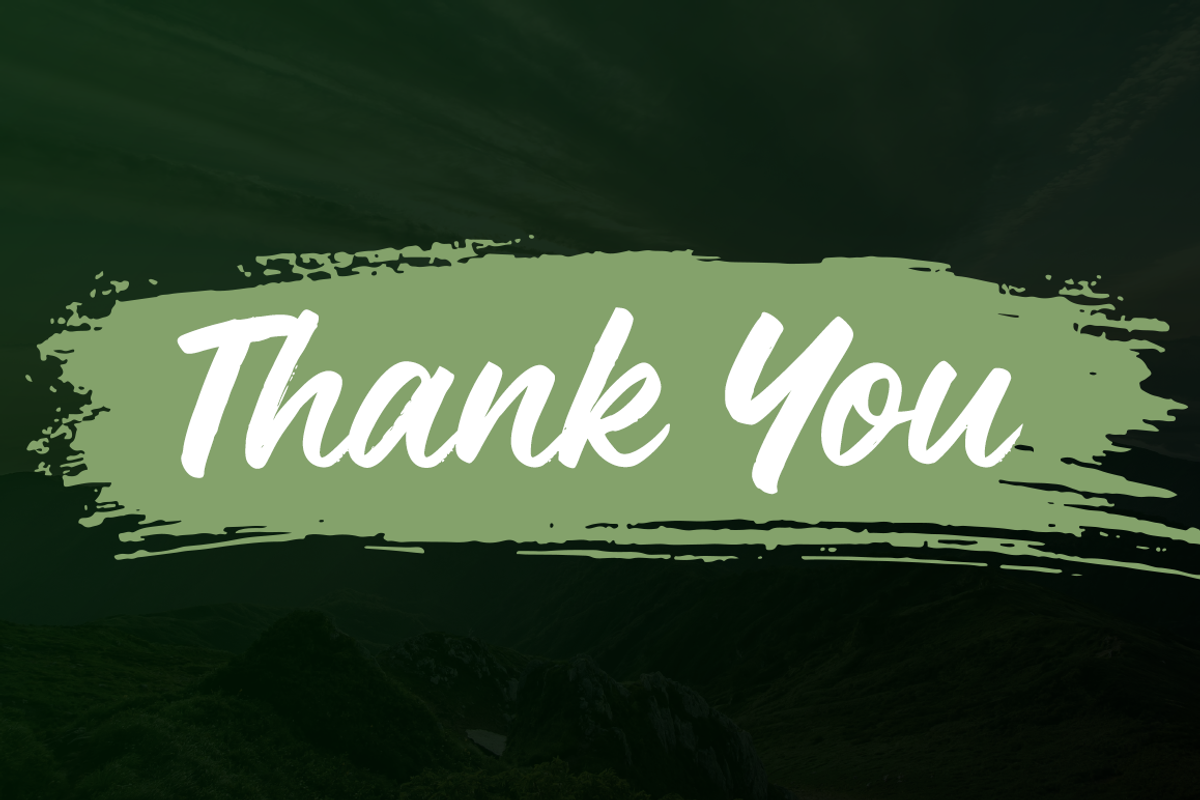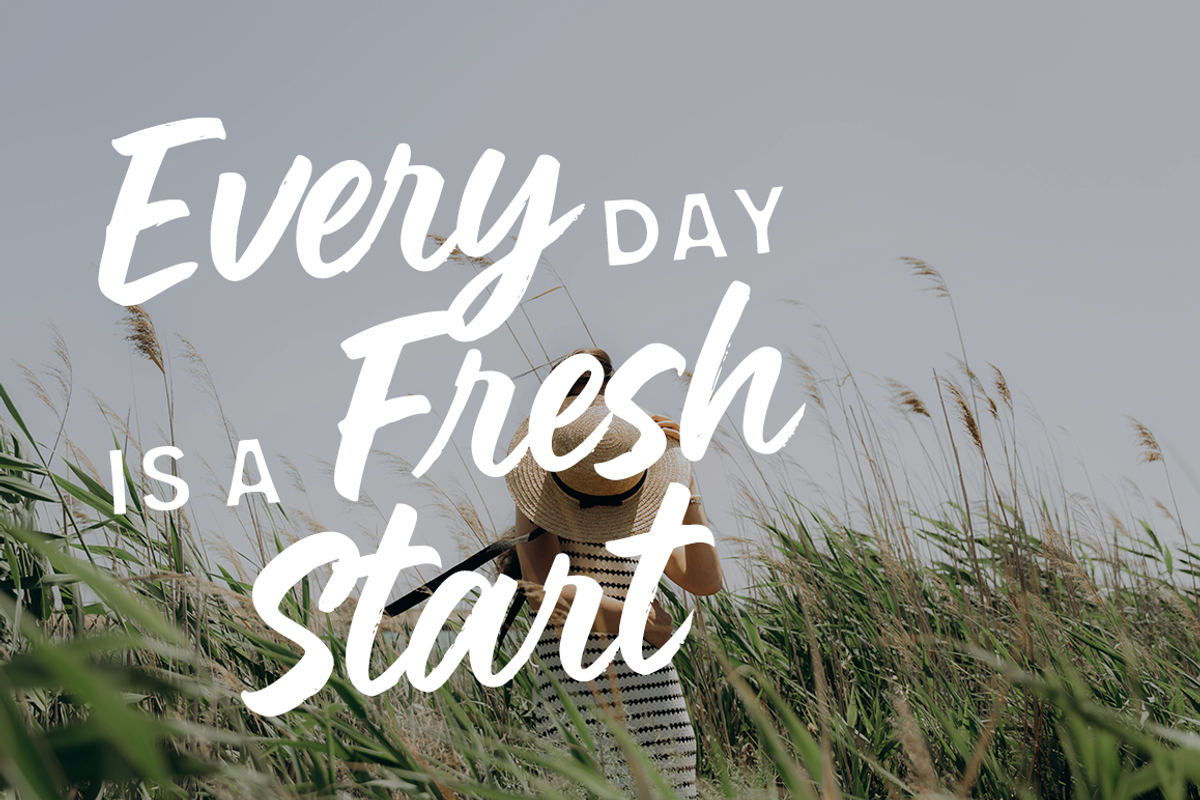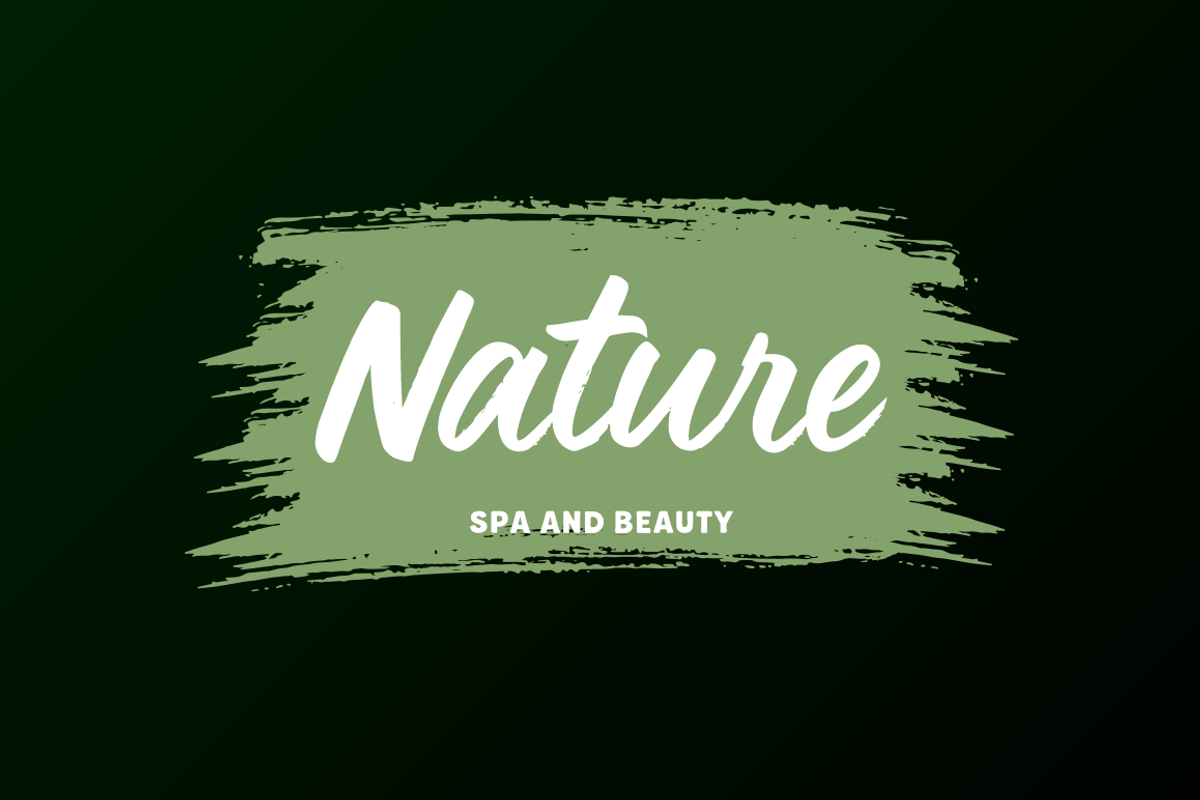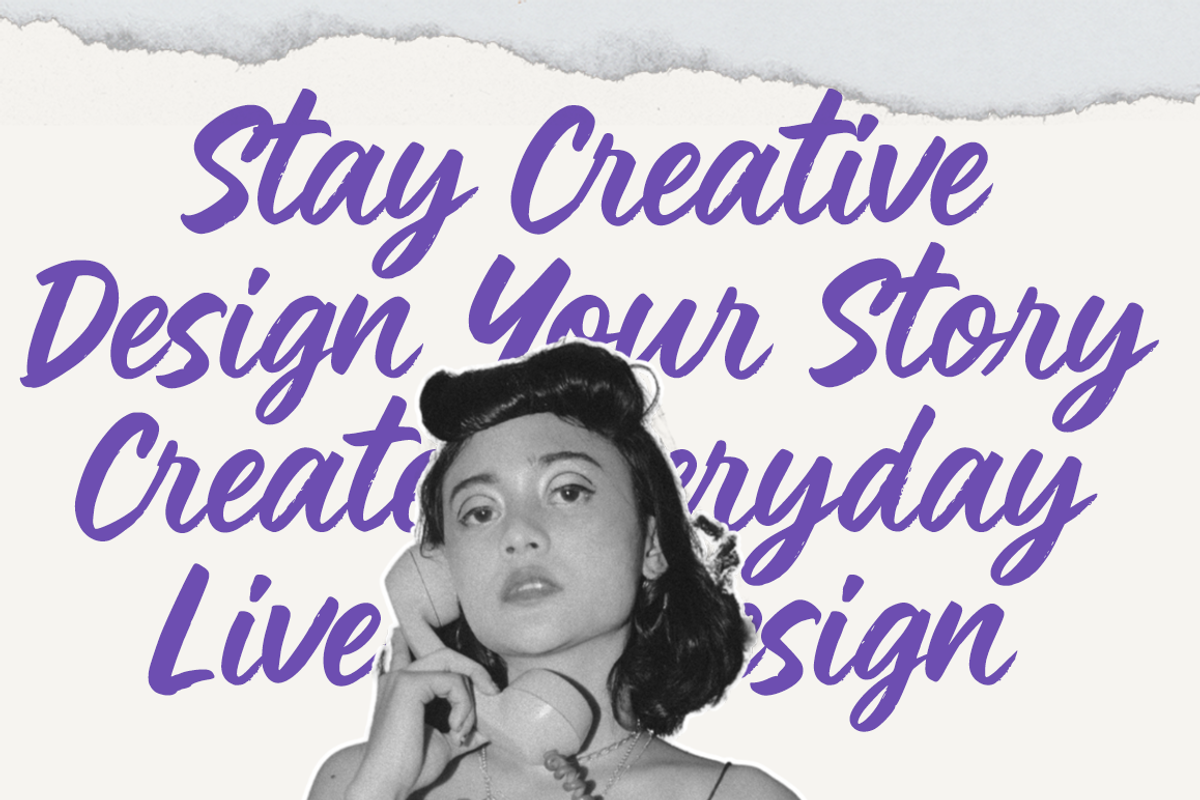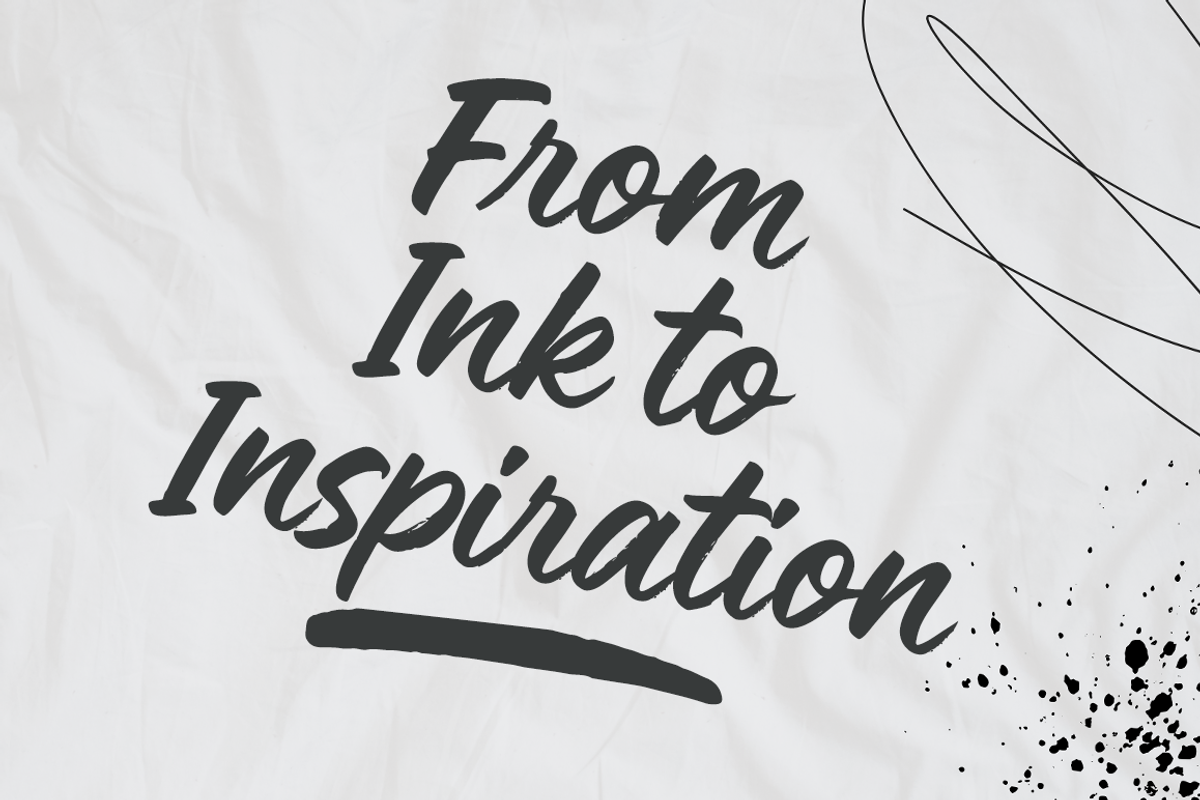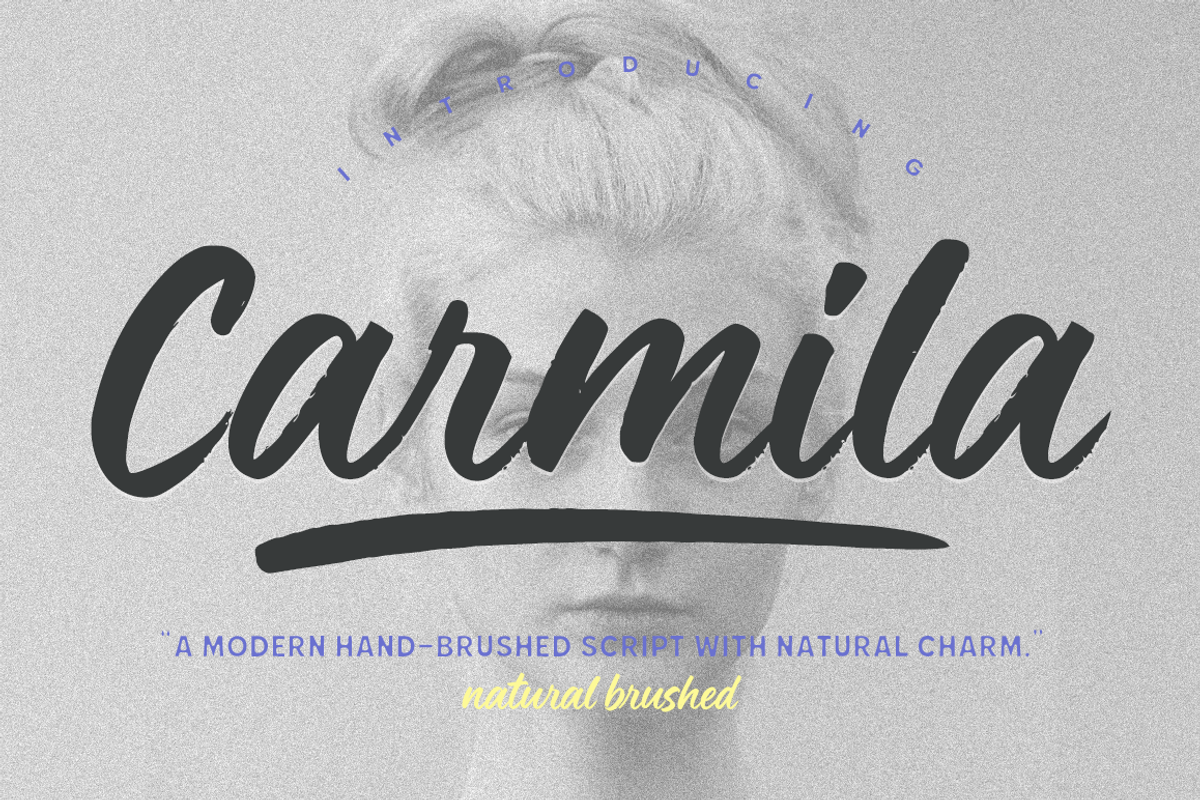
Carmila brush font
Carmila is a modern brush script font with smooth, confident strokes and a clean handwritten flow.
Its dynamic brush texture and natural rhythm make it perfect for creating stylish, contemporary designs with a professional look.
The balanced contrast between thick and thin strokes adds strong visual impact, ideal for use in branding, advertising, and editorial design.
Carmila works beautifully across digital and print projects, delivering clarity and character in every layout.